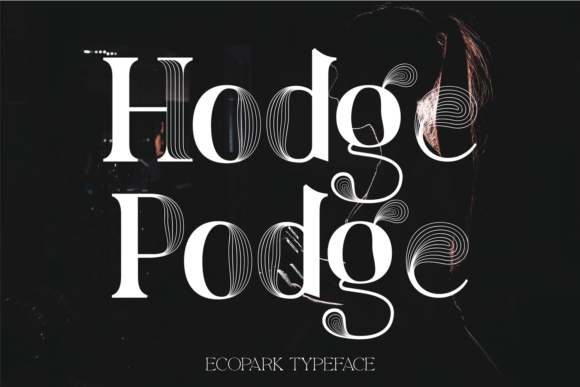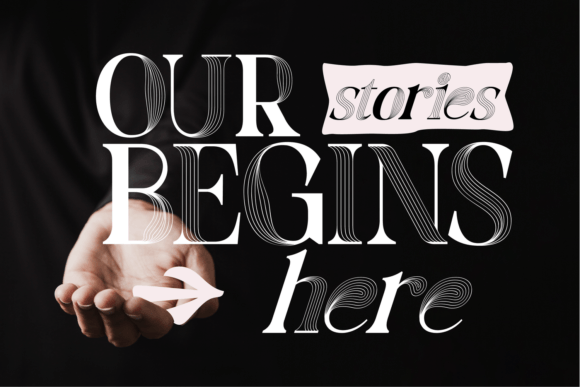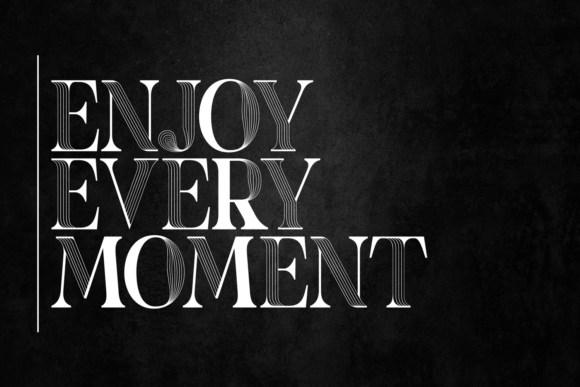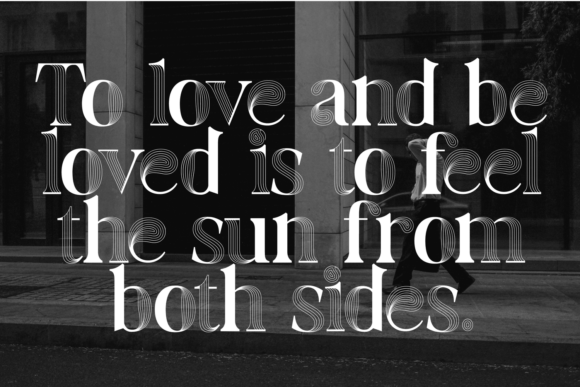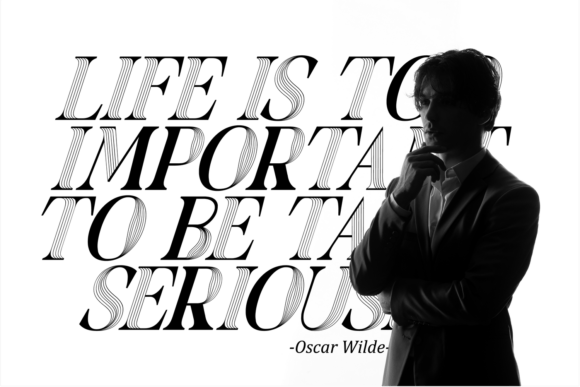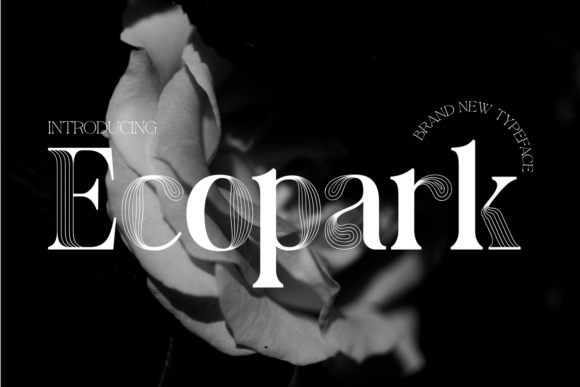
Ecopark Font: A Modern Linear Serif for Timeless Designs
In the world of typography, fonts play a crucial role in conveying the tone and personality of a brand or design project. For designers and crafters looking for a modern yet classic font, Ecopark Font is an excellent choice. This linear serif font strikes the perfect balance between traditional and contemporary styles, making it a versatile option for various design applications.
The Characteristics of Ecopark Font
Ecopark Font boasts a clean and sleek design, characterized by its minimalist approach. The font features linear serifs that add a touch of sophistication and elegance to any design project. Its classic roots are evident in its serif structure, while its modern twist lies in its simplicity and readability. This unique blend of old and new makes Ecopark Font an attractive option for designers seeking a timeless look.
Versatility in Design Projects
One of the standout features of Ecopark Font is its versatility. Its clean lines and minimalist design make it suitable for a wide range of design projects, including:
- Branding: Ecopark Font is perfect for creating logos, business cards, and other brand materials that require a professional and modern look.
- Editorial Layouts: The font’s readability and classic appeal make it an excellent choice for editorial layouts, such as magazines, newspapers, and books.
- Digital Media: Ecopark Font can be used in digital media, including websites, social media graphics, and advertisements.
Why Choose Ecopark Font?
With so many fonts available, why should designers and crafters choose Ecopark Font? Here are a few compelling reasons:
- Timeless Appeal: Ecopark Font’s classic design ensures that it will remain relevant for years to come, avoiding the risk of looking outdated or trendy.
- Readability: The font’s clean lines and simple structure make it easy to read, even at small sizes.
- Flexibility: Ecopark Font can be used in a variety of design projects, from print to digital media.
Tips for Using Ecopark Font
To get the most out of Ecopark Font, consider the following tips:
- Pair with Other Fonts: Ecopark Font can be paired with other fonts to create a unique and visually appealing design.
- Experiment with Sizes: The font’s readability makes it suitable for use at various sizes, from headings to body text.
- Play with Colors: Ecopark Font can be used with a range of colors, from bold and bright to subtle and muted.
Ecopark Font is a modern linear serif font that offers a perfect blend of classic and contemporary styles. Its clean lines, sleek design, and timeless appeal make it an excellent choice for designers and crafters looking for a versatile font for their design projects. Whether you’re working on branding, editorial layouts, or digital media, Ecopark Font is sure to impress.